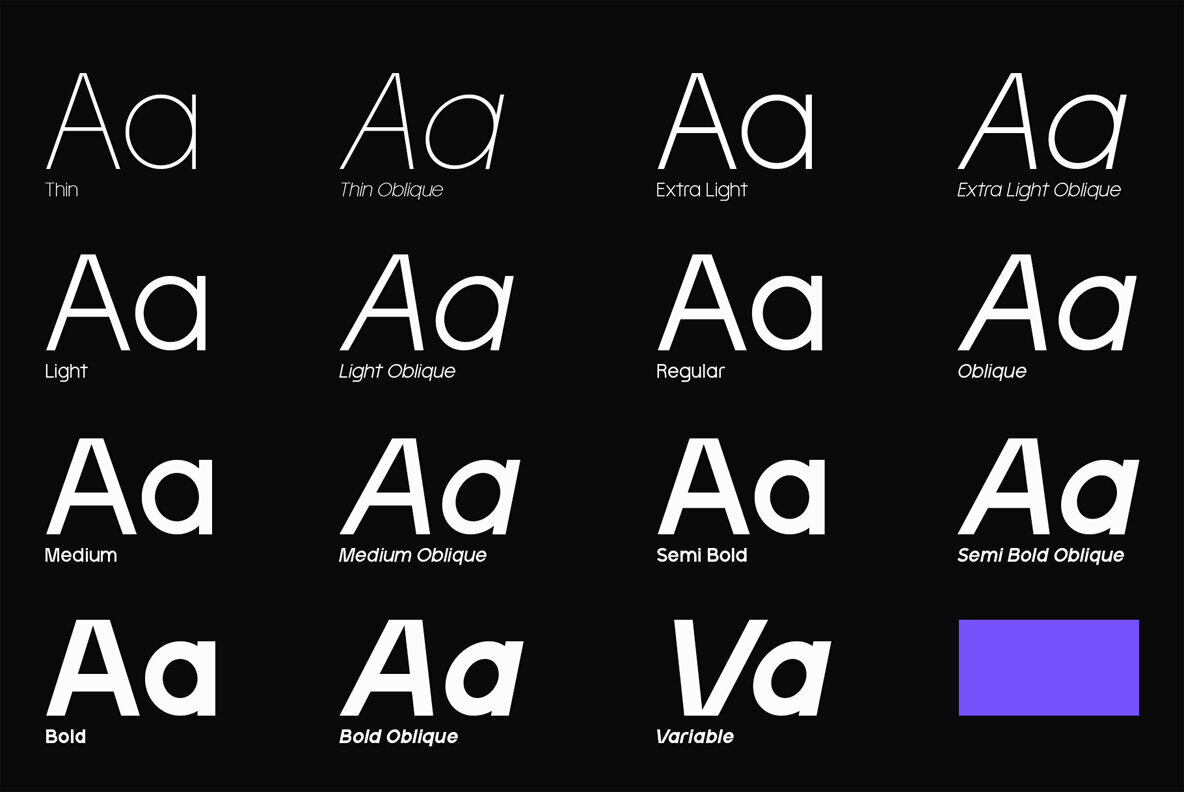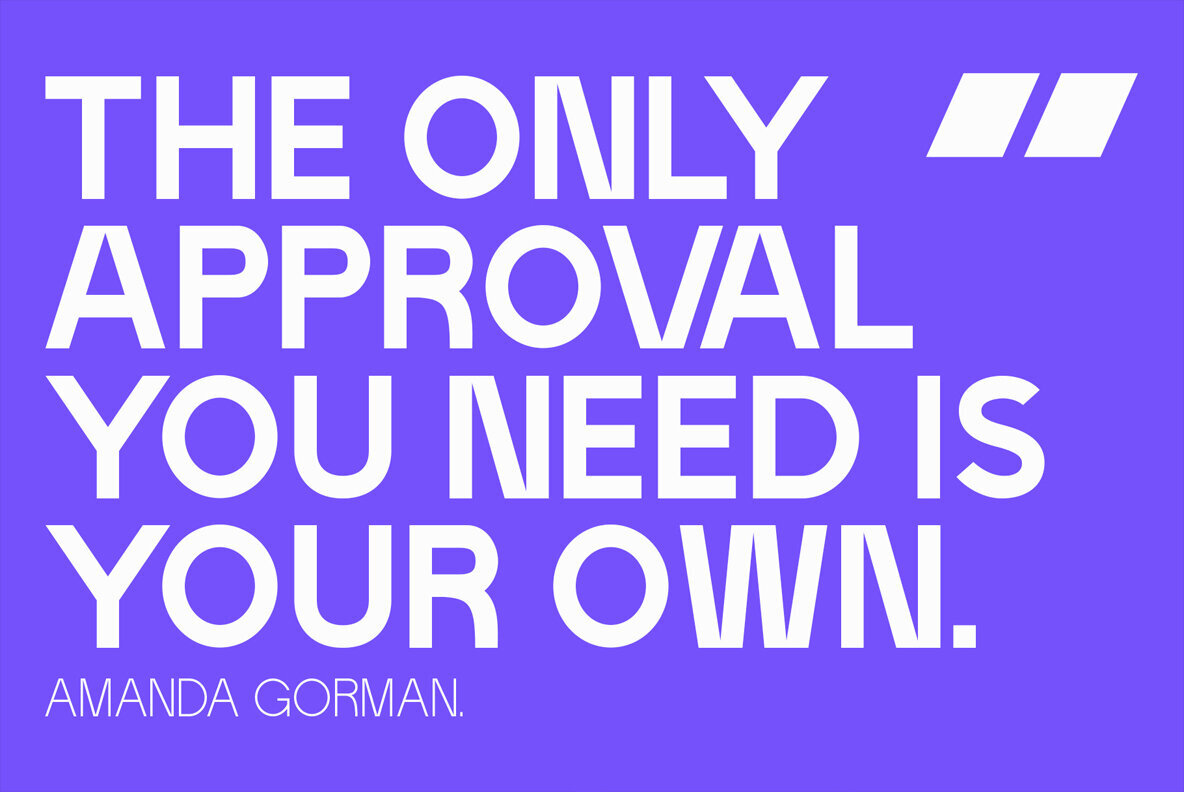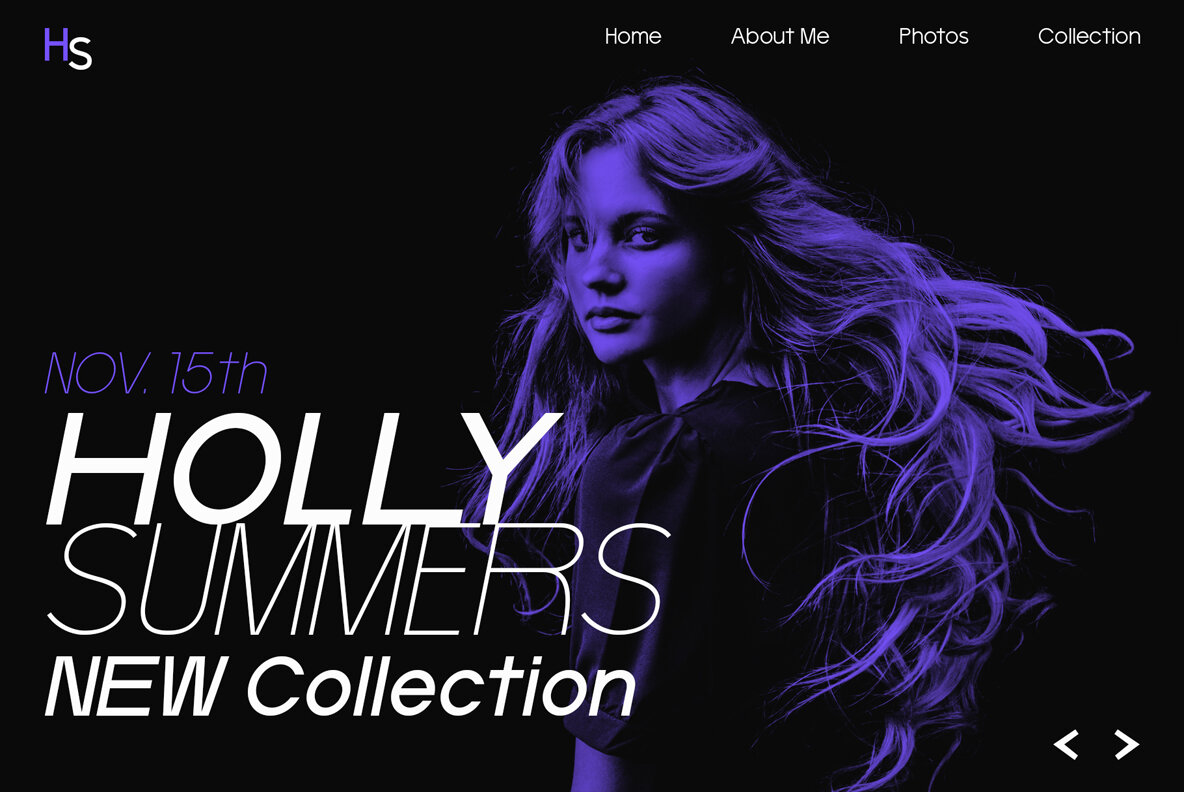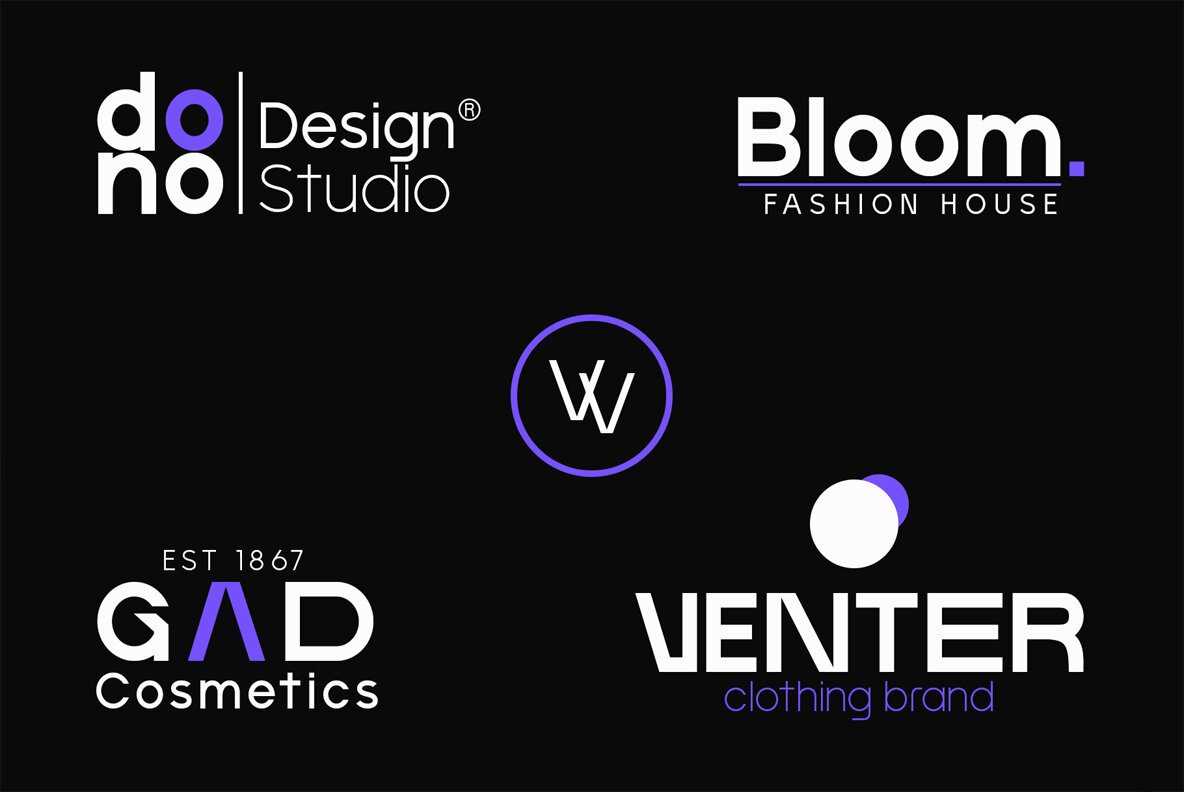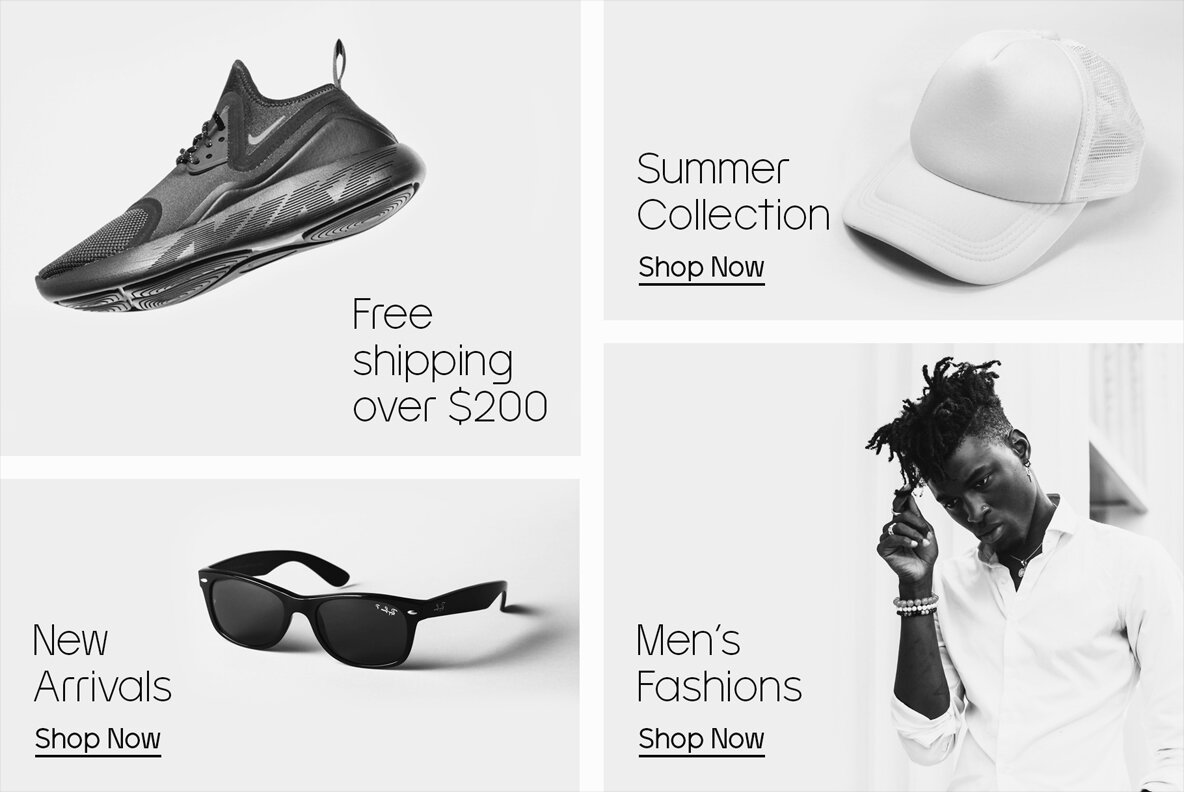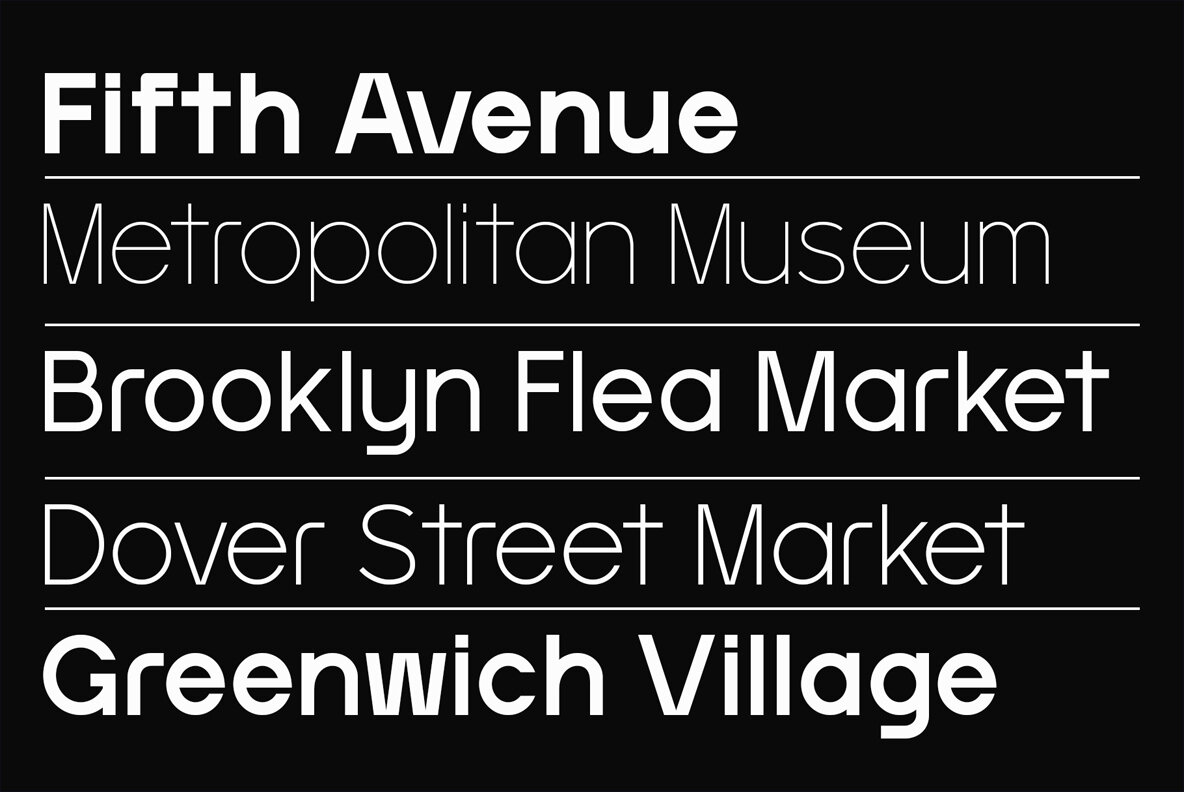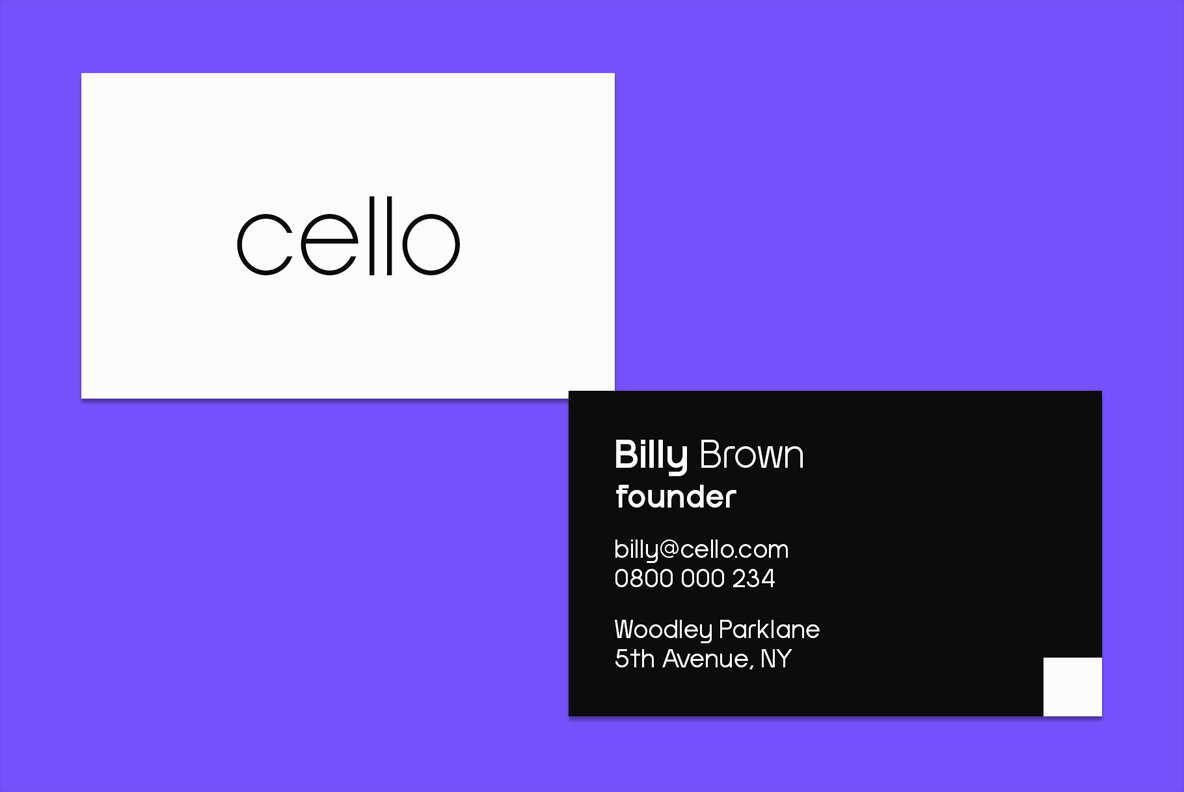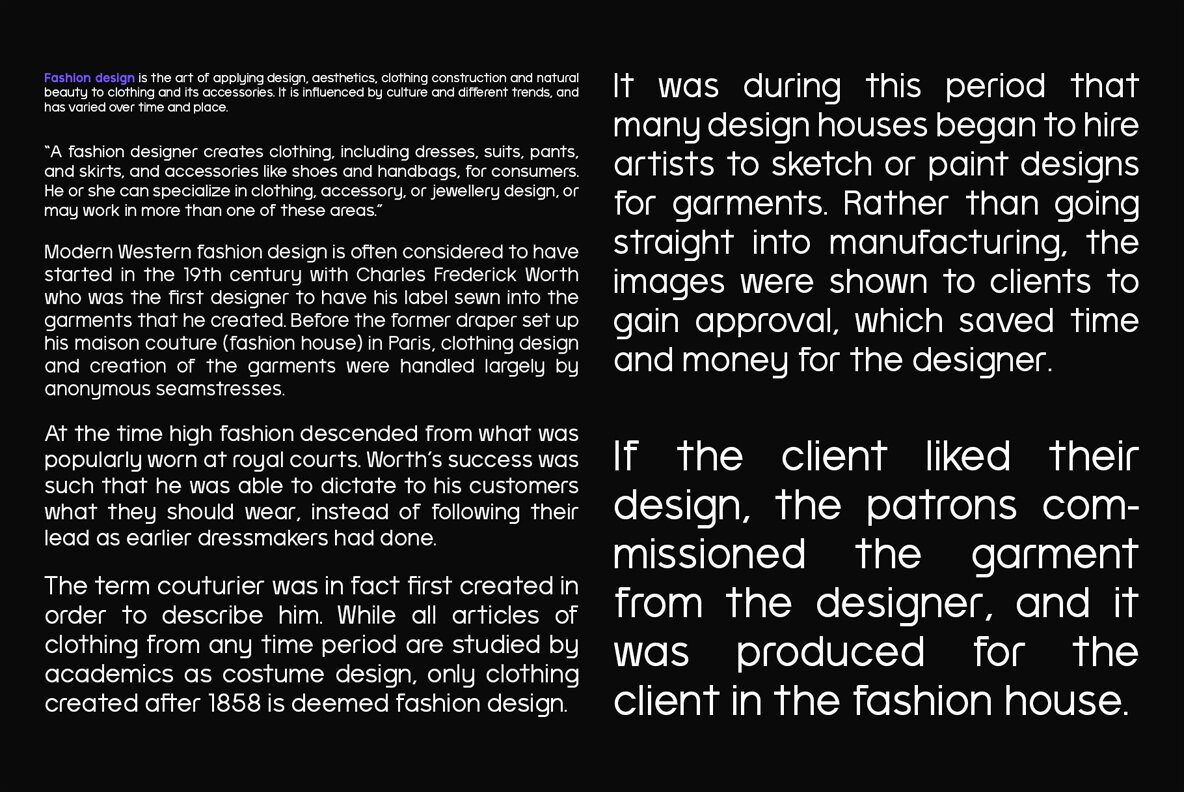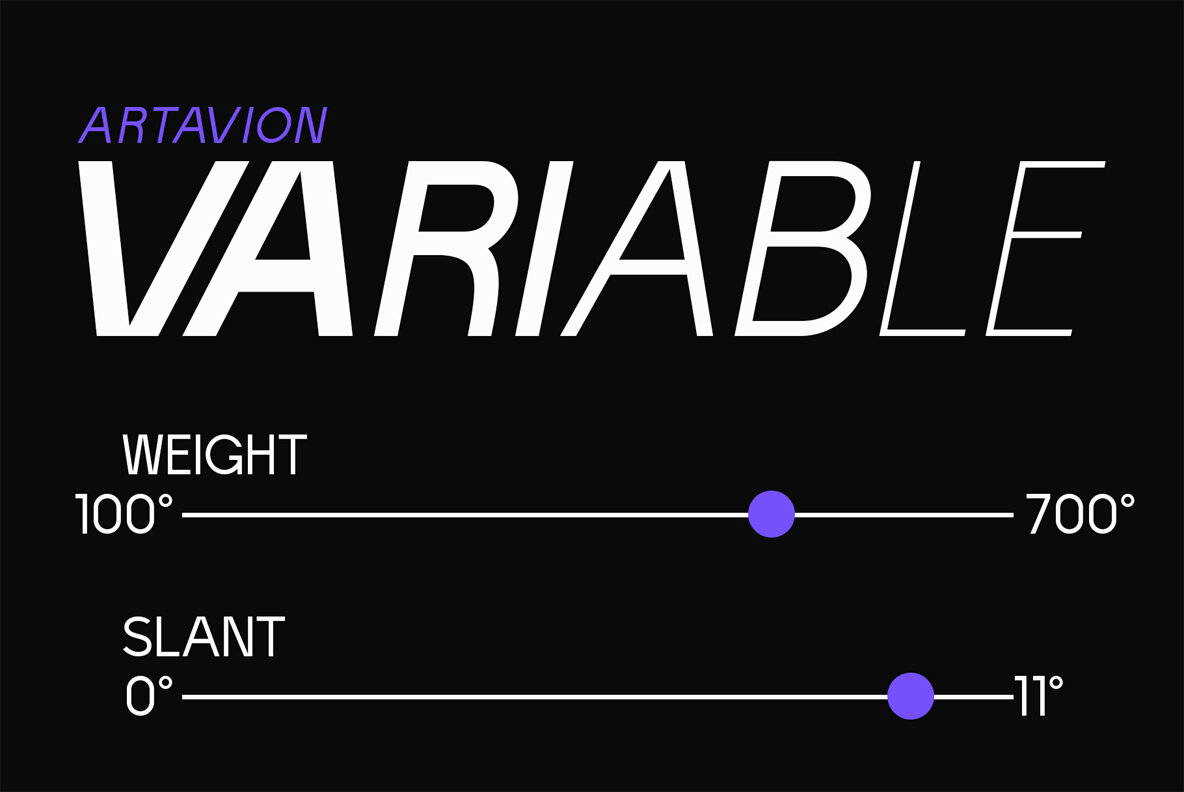
Artavion Font
Artavion is a variable geometric sans, which is designed with modern stylish letters that have a neutral feel. The idea behind Artavion was to create an all-purpose font that looks great in headlines, short and long text. Artavion is an ideal font for graphic designs and advertising agencies who are looking to create beautiful layouts and designs. Artavion comes with 7 different weights with oblique versions, it is equipped with a set of powerful opentype features. With its great multilingual support, Artavion can produce a large number of different languages.